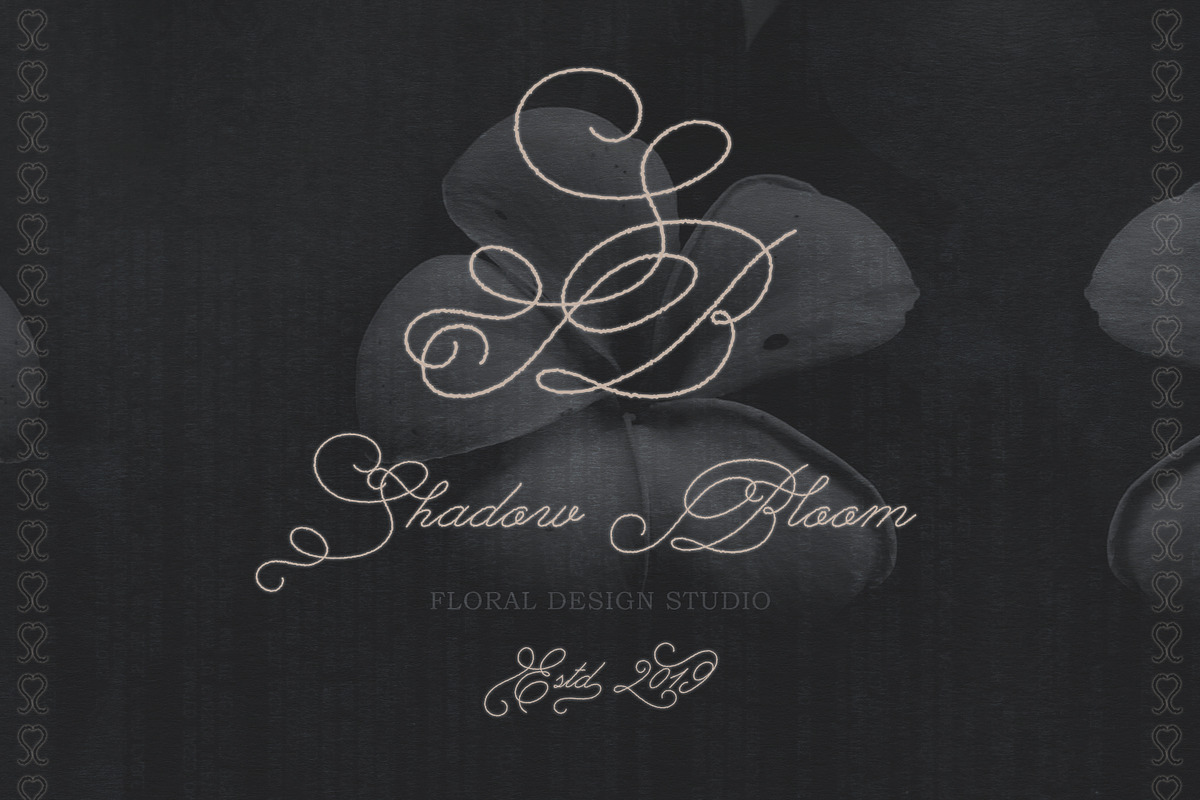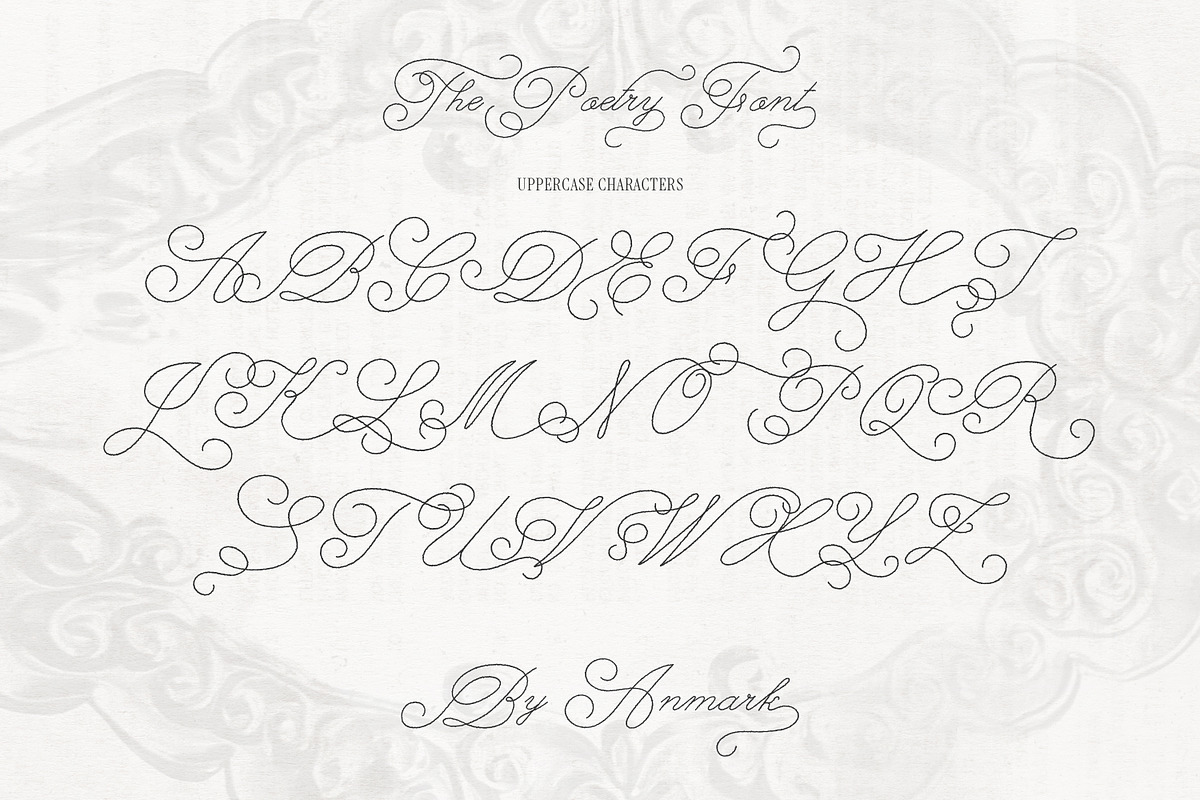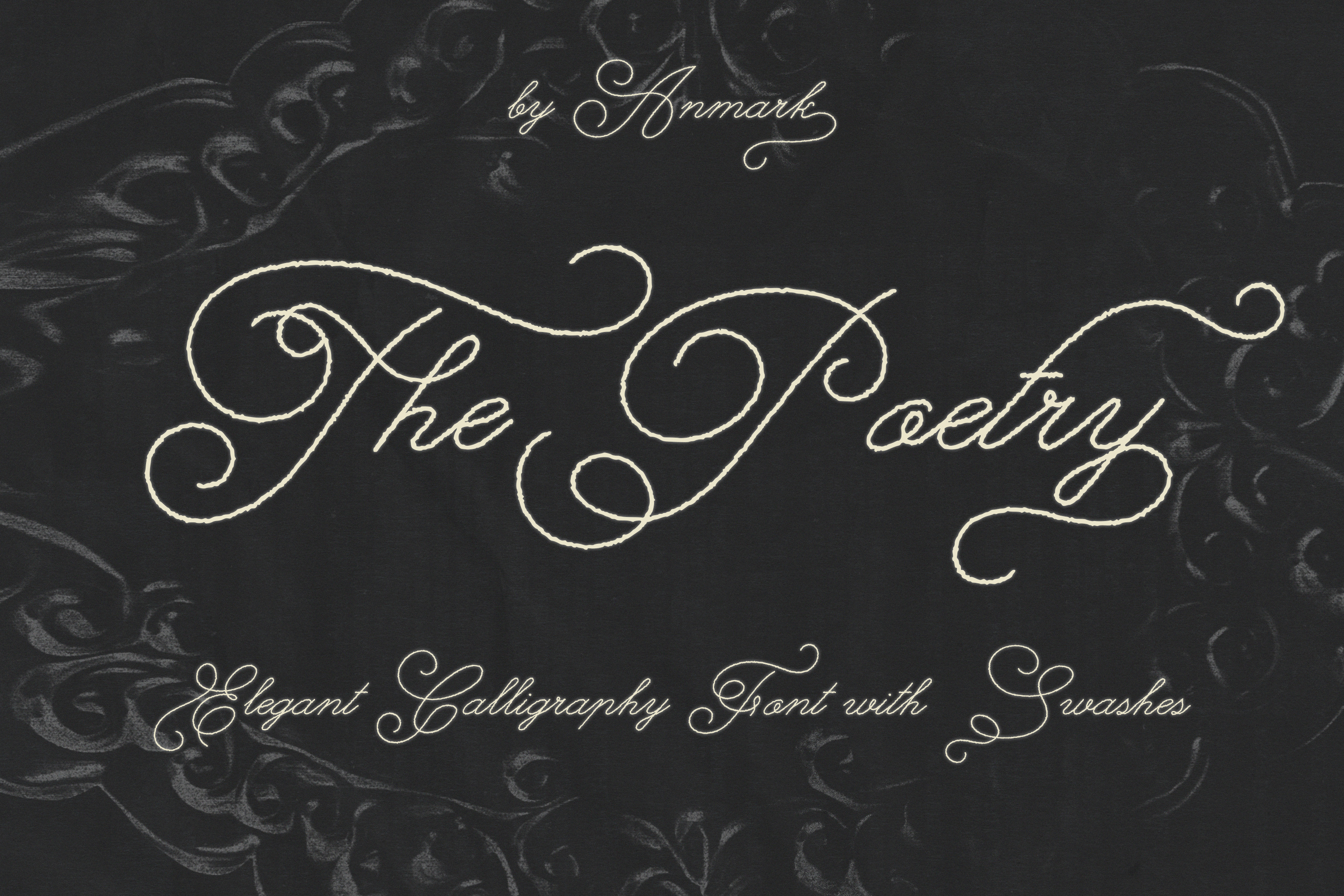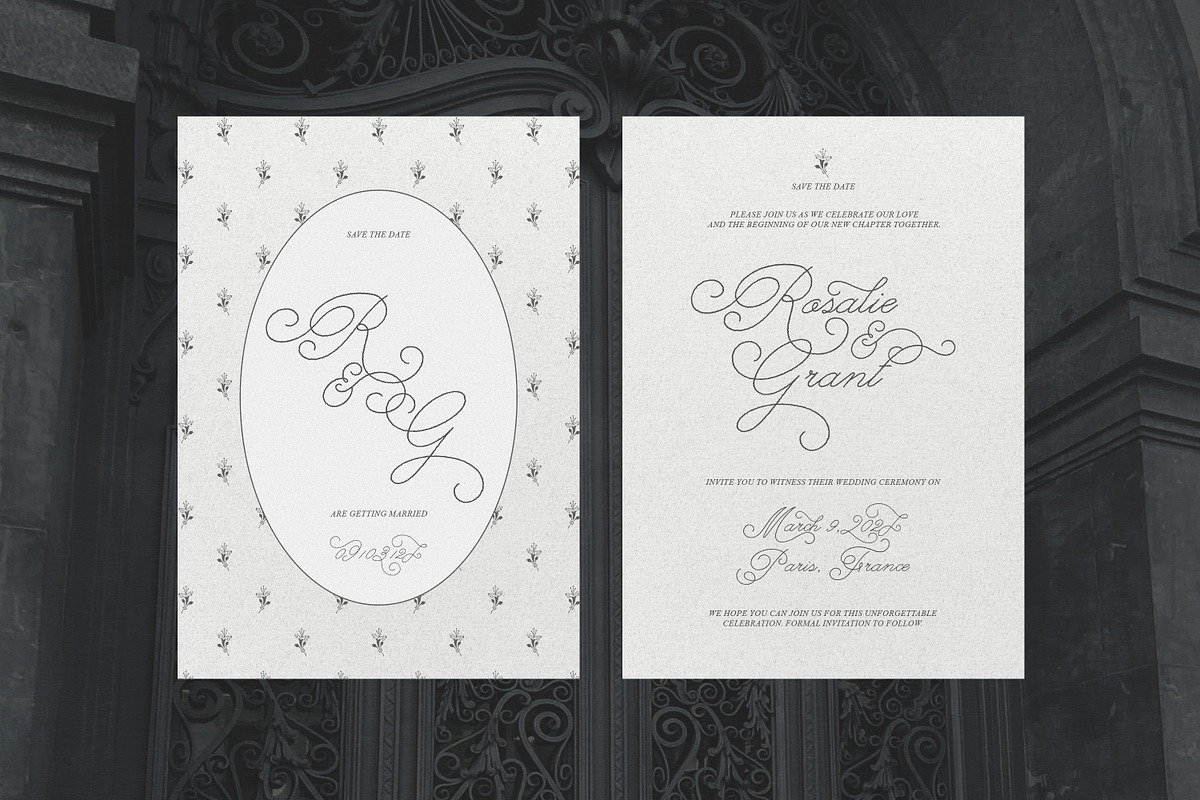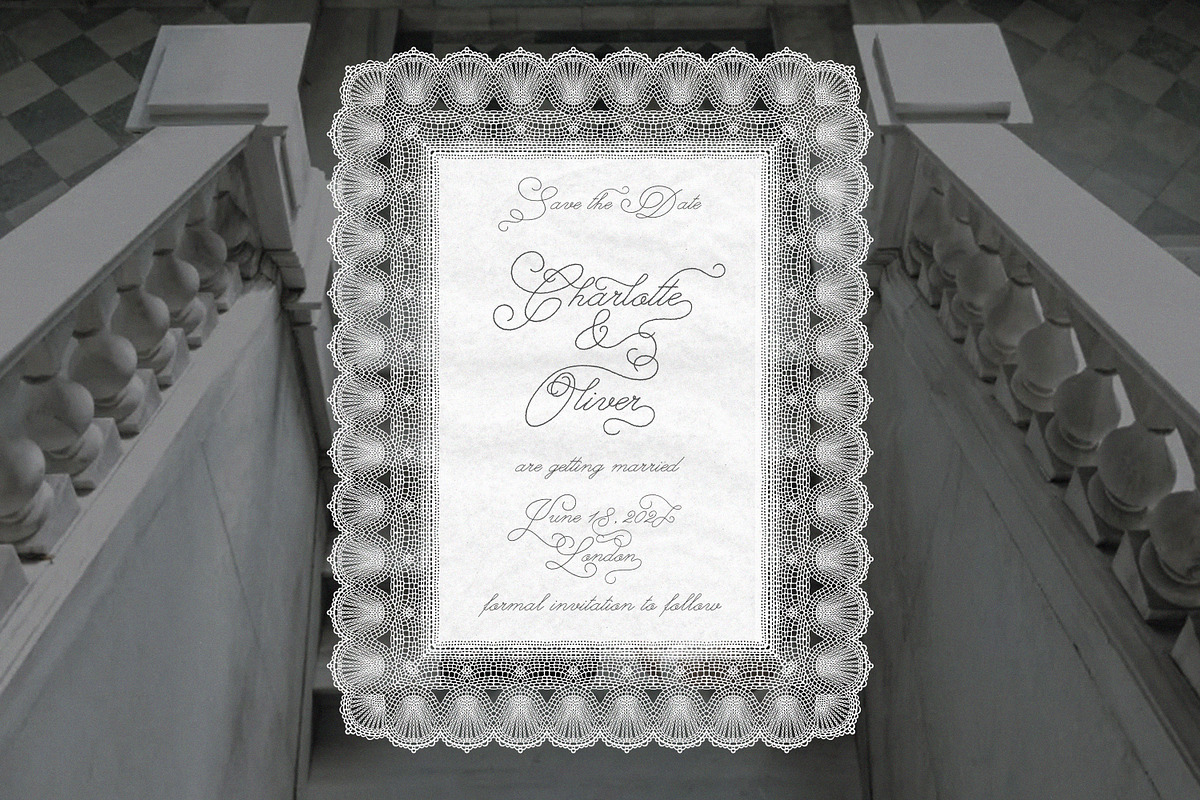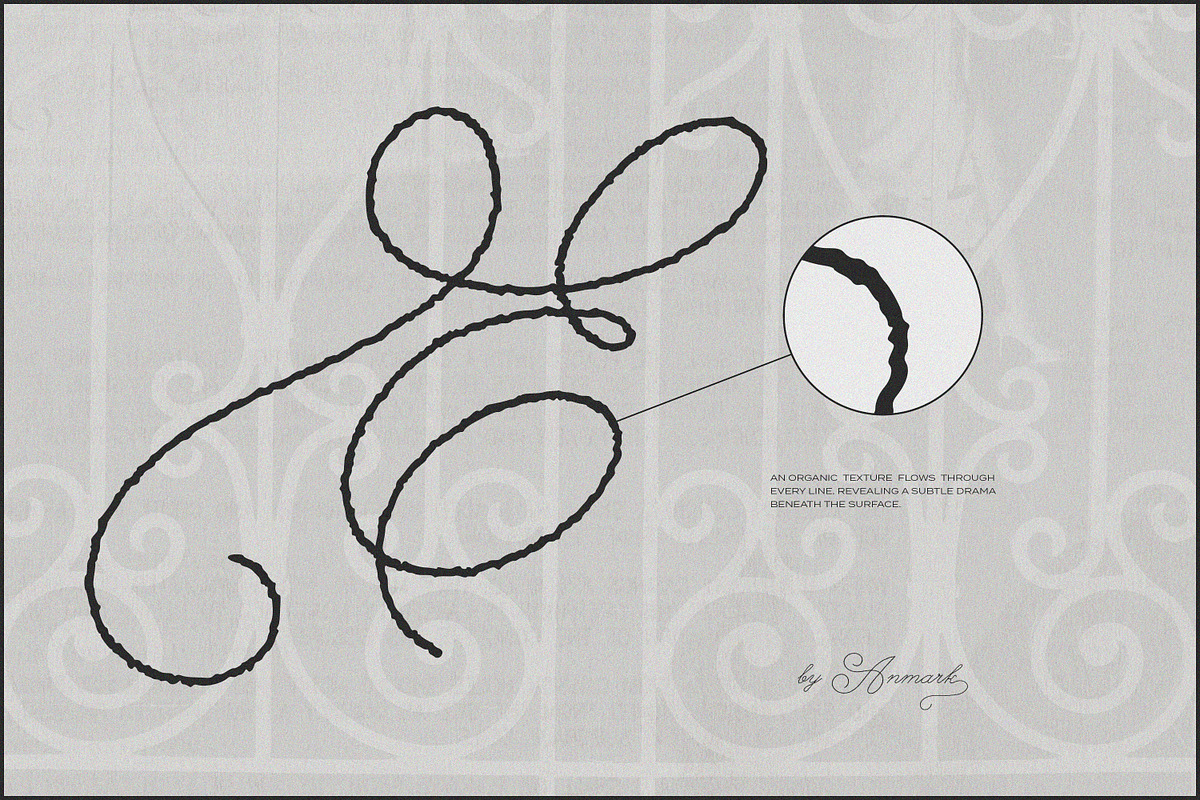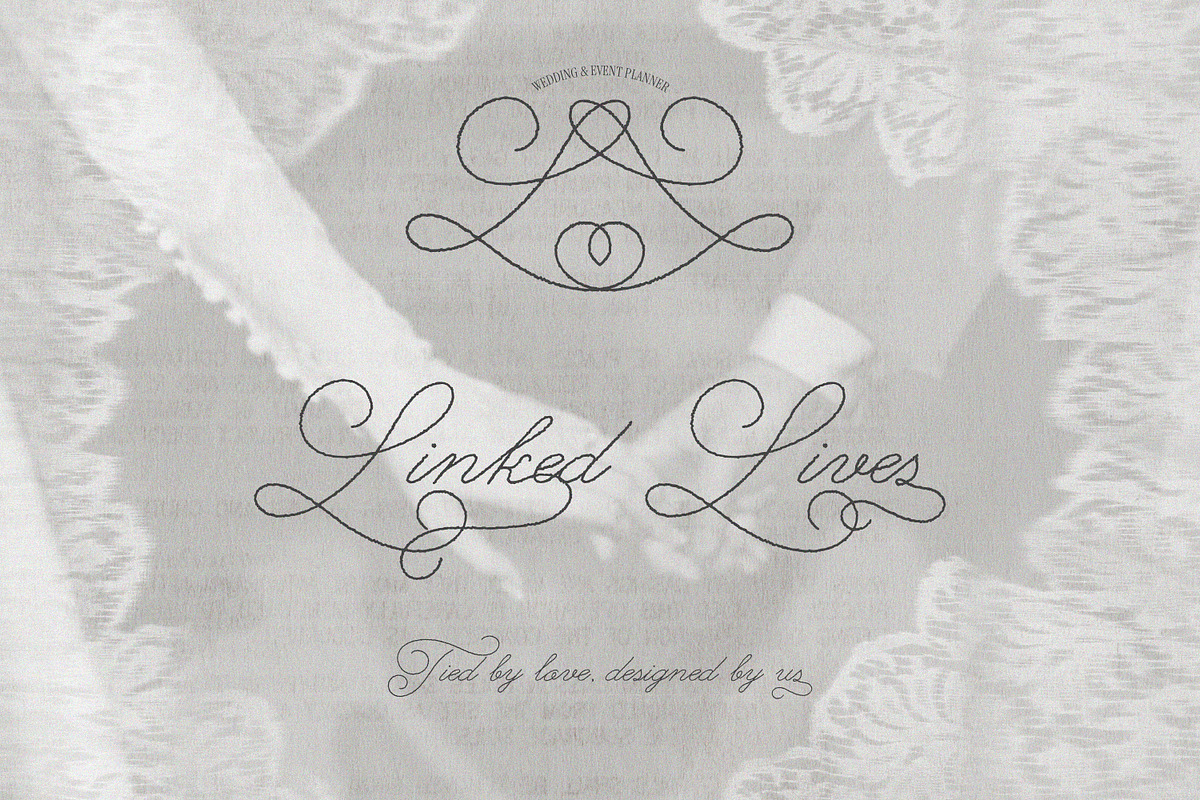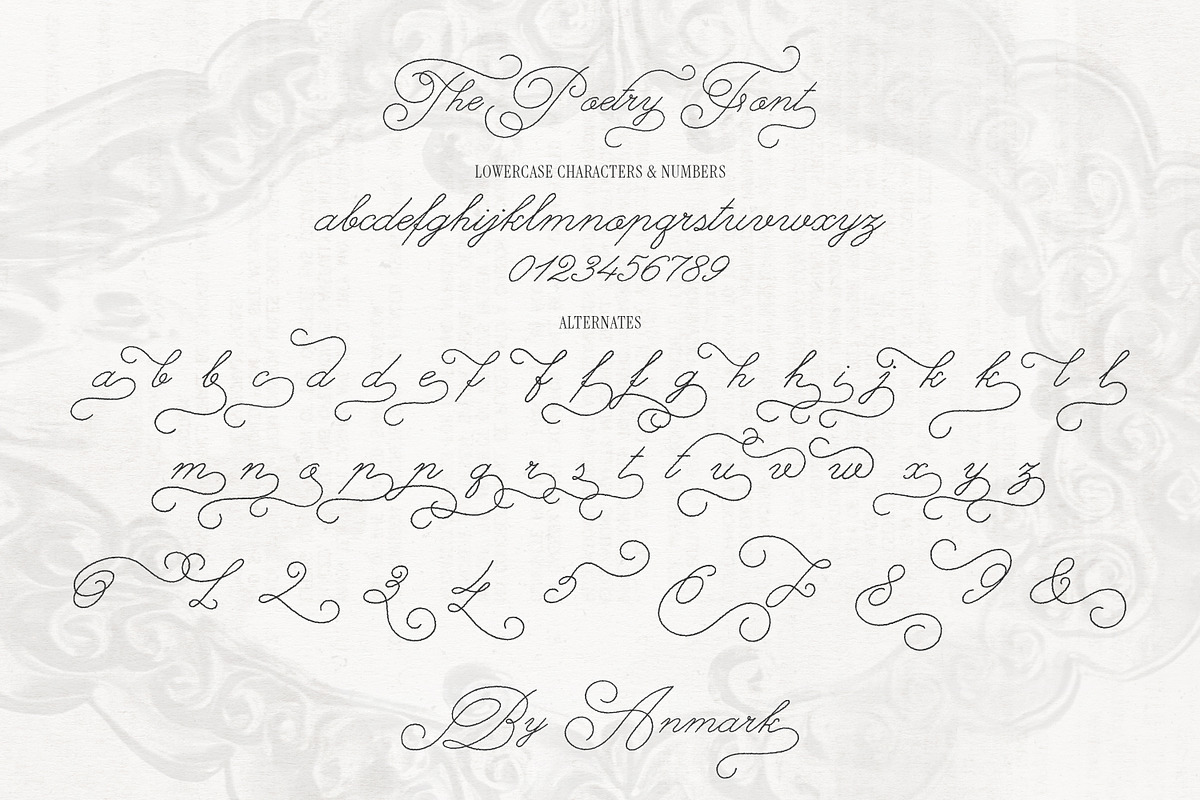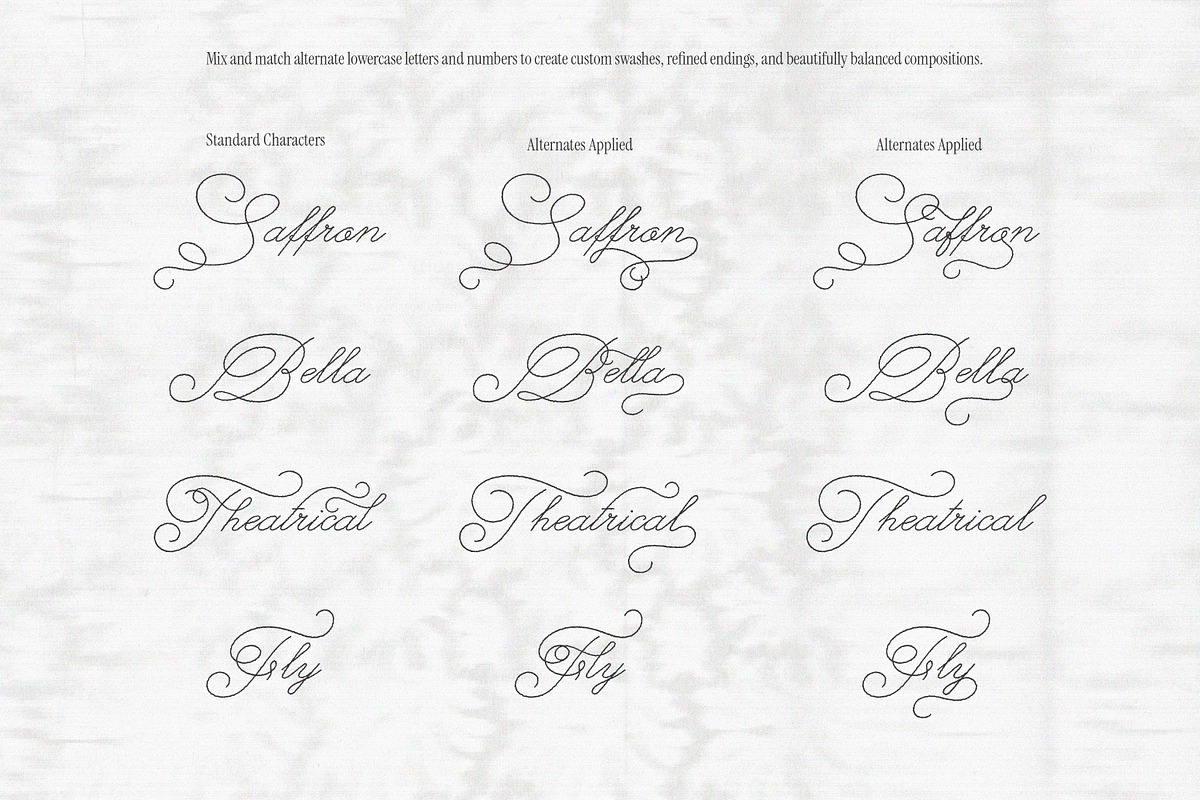
The Poetry Elegant Swash Script Font
The Poetry is an elegant handwritten script font that blends classic calligraphy influence with a soft textured, slightly messy and rough finish, giving each letter a natural ink on paper feel with refined yet expressive movement. The typeface includes stylistic alternates for lowercase letters and numbers with graceful swashes, allowing you to create flowing letter connections, extended strokes, and more decorative compositions while maintaining balance and readability.
It is well suited for wedding invitations, branding, logo design, editorial layouts, packaging, stationery, social media graphics, and feminine visual identities, offering both a clean elegant style and a more expressive decorative look depending on how you use the alternates.